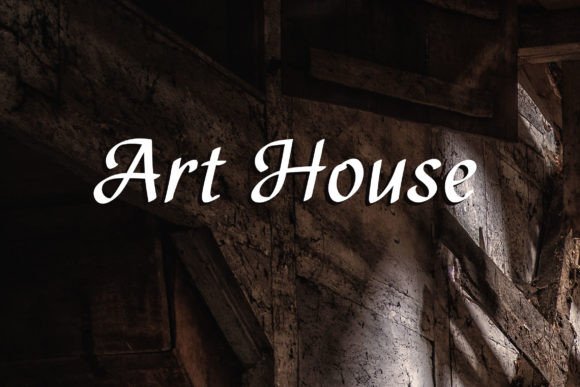
Step into the realm of captivating typography with Art House Font, a script font that exudes elegance and breathes life into your creative projects. Its graceful strokes, reminiscent of a skilled calligrapher's touch, infuse your designs with a timeless charm that speaks to the heart.
Unleash your imagination and explore the endless possibilities that await with Art House Font. Its organic flow and distinct character bring a touch of sophistication to any project, from branding and logos to wedding invitations and social media graphics. Let your words dance across the page, imbued with an air of graceful beauty that leaves a lasting impression.
With Art House Font, you'll discover a font that effortlessly transcends trends and remains a timeless treasure in your design arsenal. Its versatility knows no bounds, effortlessly adapting to a myriad of styles and aesthetics. Whether you seek a classic vintage vibe, a touch of modern elegance, or a whimsical and playful feel, Art House Font delivers.
Immerse yourself in the world of Art House Font, where creativity flourishes and beauty abounds. Let your designs blossom with a font that captures the essence of timeless style and modern grace. Embrace the art of typography and elevate your projects to new heights of visual splendor.